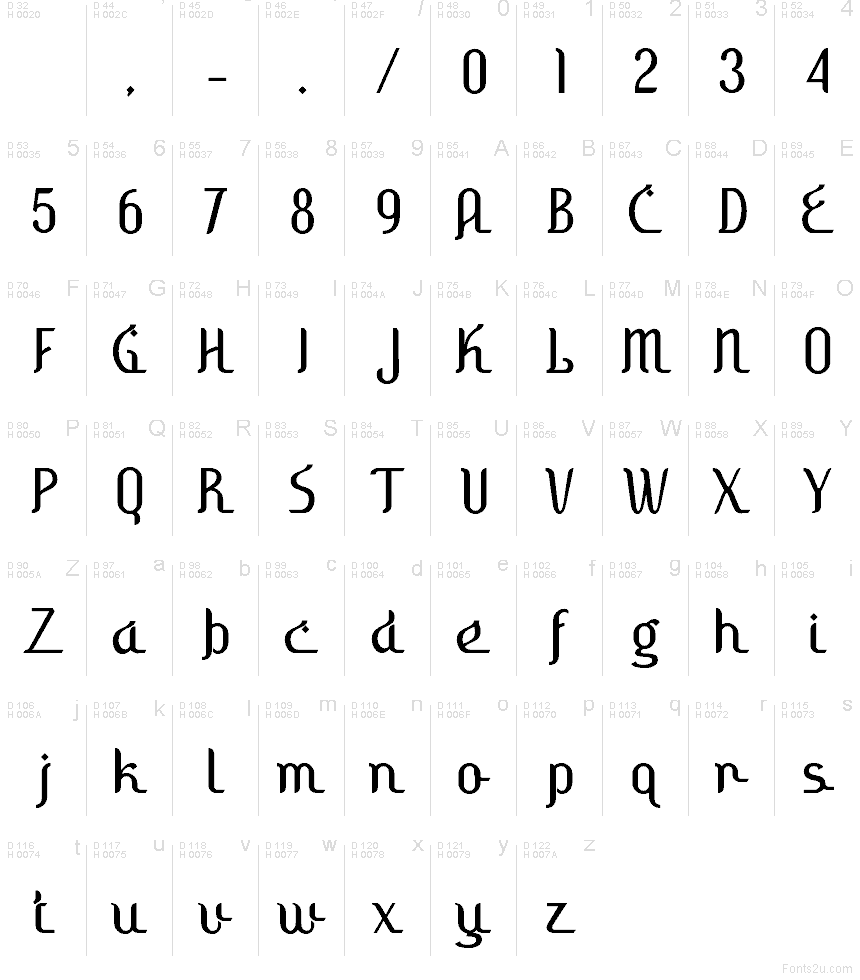
Kantata Aksara font by Ikiiko Type is a free faux-Arabic foreign typeface that brings a smooth, calligraphic rhythm to Latin letters. Its long, looping strokes and softly rounded corners echo brush lettering, while the steady stroke weight keeps it crisp and readable at larger sizes. The letters link and curl with a gentle sway, giving headlines a warm, exotic atmosphere without feeling gimmicky or hard to decipher.
Using Kantata Aksara font, you can instantly evoke Middle Eastern or North African flavor in restaurant logos, menus, food packaging, festival posters, travel brochures, and themed social media graphics. This free font shines in bold headings and short phrases; keep body copy in a clean sans serif to balance its flowing shapes. Try generous letterspacing at larger sizes to let those inky curves breathe and really show off the script-inspired texture.